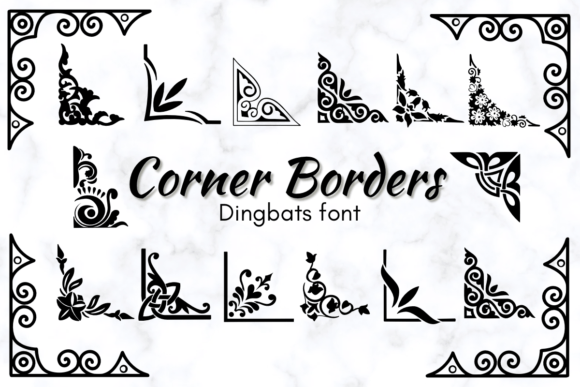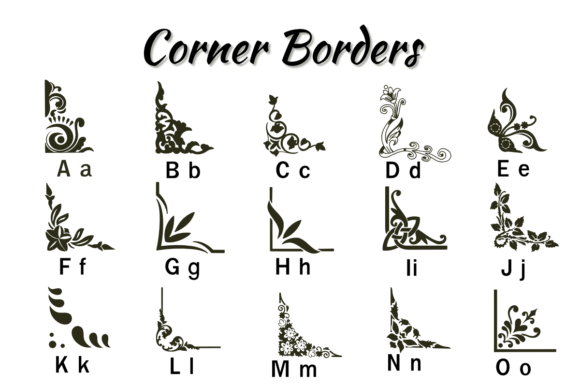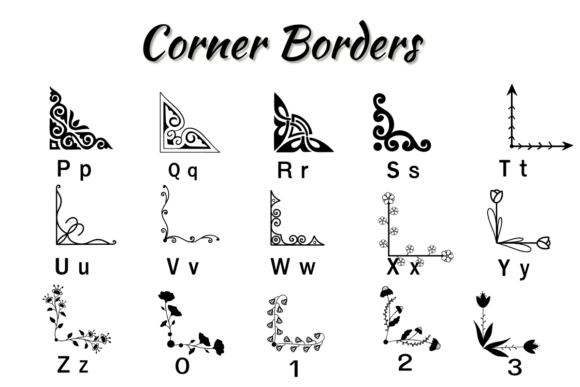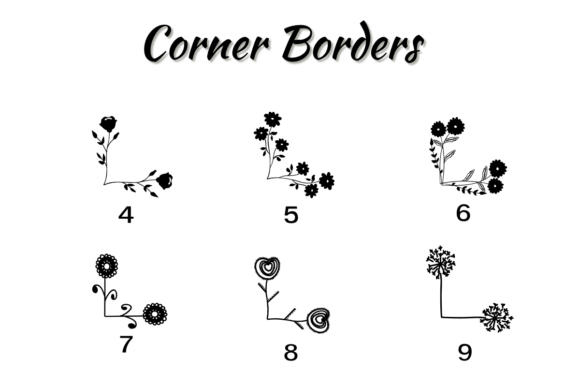
Corner Borders Font
About the Corner Borders Font
Presenting Corner Borders Font, a unique and stylish typeface that will make your work stand out. Corner Borders is a dingbats font with a sketched theme style. This font can enhance your creative projects such as wedding invitations, DIY, crafts, decorations, logos, and many other creative ideas.
Corner Borders excels in applications requiring a hand-drawn, slightly whimsical feel. It’s ideal for logos, short headlines, packaging design for artisanal products, and decorative elements within larger designs. Avoid using it for body text or UI elements; its sketched nature makes it illegible at smaller sizes and unsuitable for extended reading.
Its playful yet slightly rustic personality pairs well with clean sans-serif fonts like Open Sans for a balanced contrast, or a more elegant serif like Lora to add sophistication. For a bolder look, consider pairing it with a geometric sans-serif such as Futura.
The overall mood is approachable and friendly, making it suitable for brands focused on craftsmanship, handmade goods, or a vintage aesthetic. Avoid using it where a highly professional or minimalist feel is required.
Corner Borders Font Usage Examples
Corner Borders Font Example